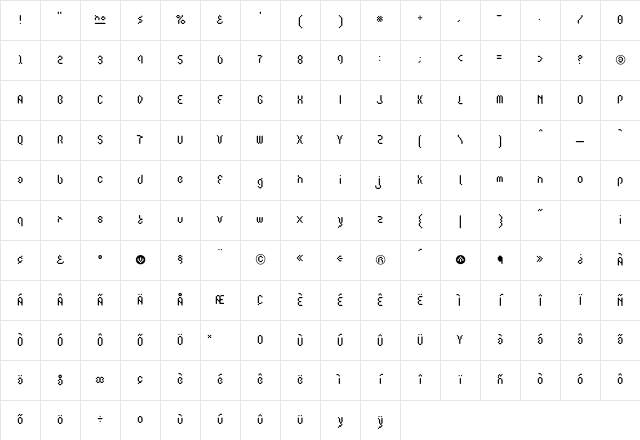
Pulsar GClass Free Font
Pulsar GClass
Style: GClass
Pulsar Family
Pulsar GClass
Design Context for Pulsar
Pulsar is a composed and adaptable typeface that performs quietly and consistently across a wide range of design contexts.